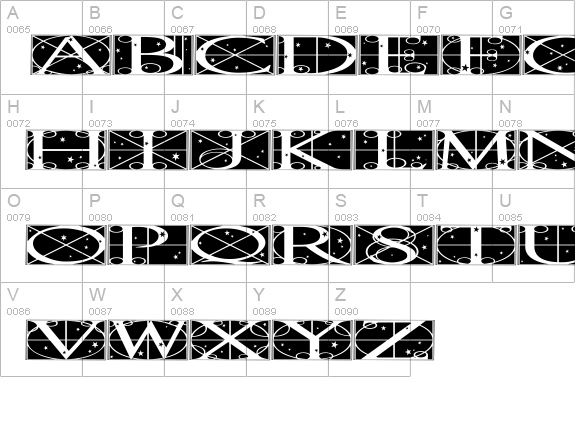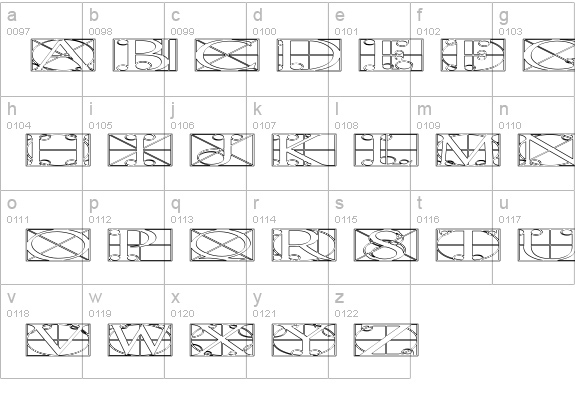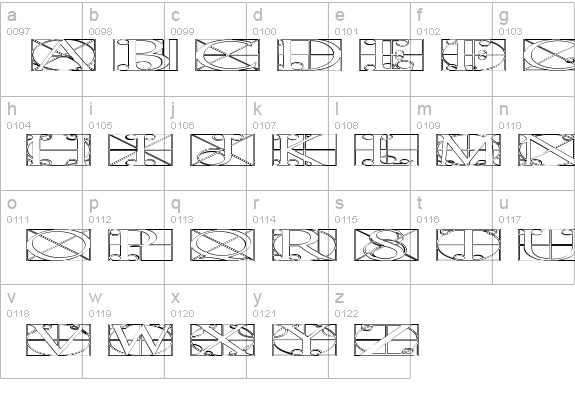
Time Pundits Font Details
Introducing Time Pundits, a font that effortlessly merges classic elegance with modern simplicity. This versatile typeface captures the essence of timelessness, making it the perfect choice for a wide range of design projects. With its clean lines and balanced proportions, Time Pundits exudes a sense of sophistication and refinement. Each character is carefully crafted, ensuring clarity and legibility in any context. Whether used for headlines, body text, or branding, this font commands attention while maintaining a harmonious visual rhythm. But what truly sets Time Pundits apart is its accessibility. Designed with the user in mind, this font is freely available to download at FontsMarket.com. Embracing the power of inclusivity, Time Pundits allows designers of all backgrounds and budgets to access its timeless charm without compromising on quality or creativity. Furthermore, Time Pundits offers a comprehensive range of weights and styles, allowing for seamless integration across various design applications. From bold and impactful to delicate and refined, this font adapts effortlessly to suit any design concept, enhancing the overall aesthetic and conveying messages with precision. Whether you're creating a logo, designing a magazine spread, or crafting a website, Time Pundits is the ideal font choice to elevate your work to new heights. Its versatility, elegance, and free availability make it a valuable asset for designers and creatives alike. Download Time Pundits from FontsMarket.com today and unlock its timeless potential for your next project.